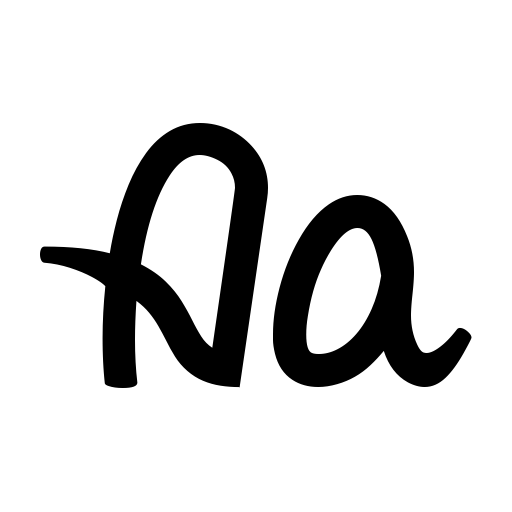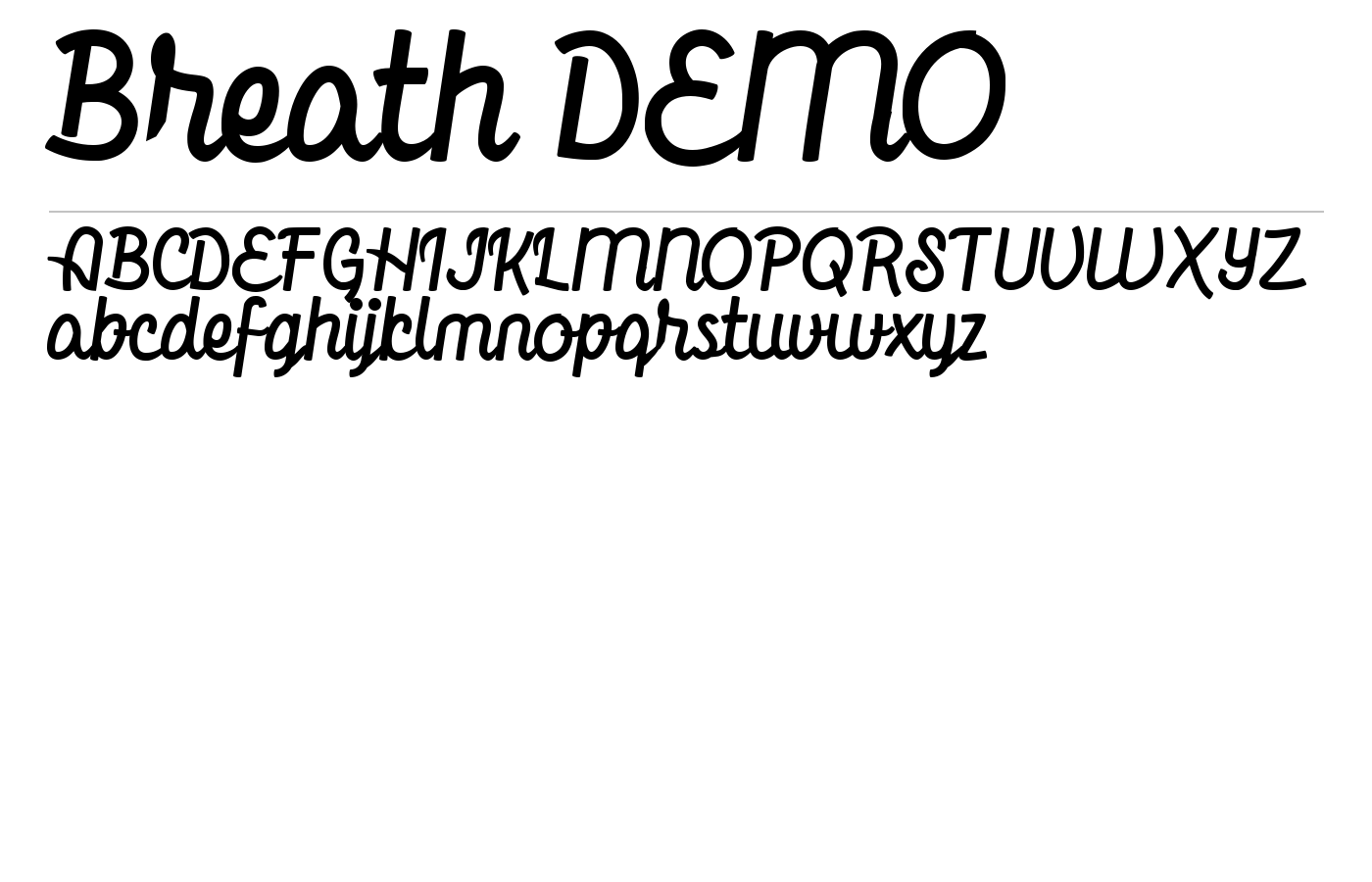
Breath DEMO is a playful and casual script font with a handwritten feel, featuring a slightly condensed width and moderate contrast between strokes. Its rounded, smooth letterforms with a slight slant give it an approachable and warm personality, making it ideal for creative branding, informal headlines, and friendly editorial projects. This font works well where a personal, lively touch is needed without sacrificing clarity and readability.
Breath DEMO Font
About Breath DEMO Font